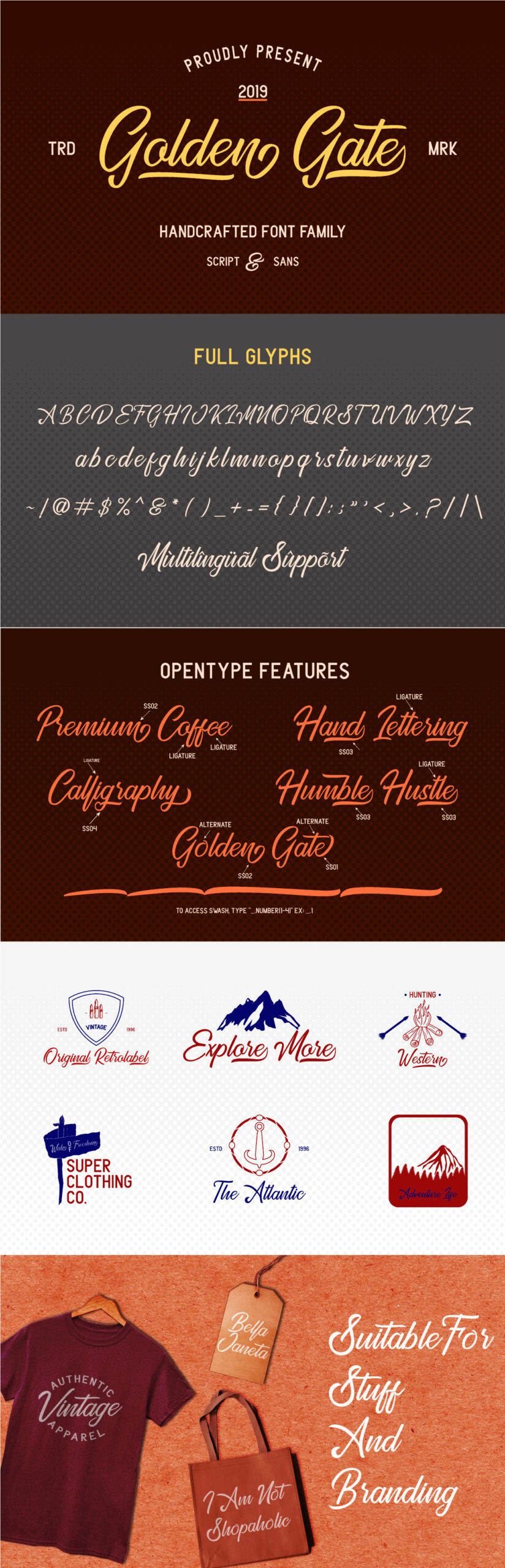
The Golden Gate, from Rivo Dwi Adriansyah, is an eye-catching handwritten font duo. It includes a bold sans version and an elegant script version, which can be combined perfectly for logos, branding, labels, T-shirts, posters, signs, tags and more. Free for personal use! For commercial use please go here.